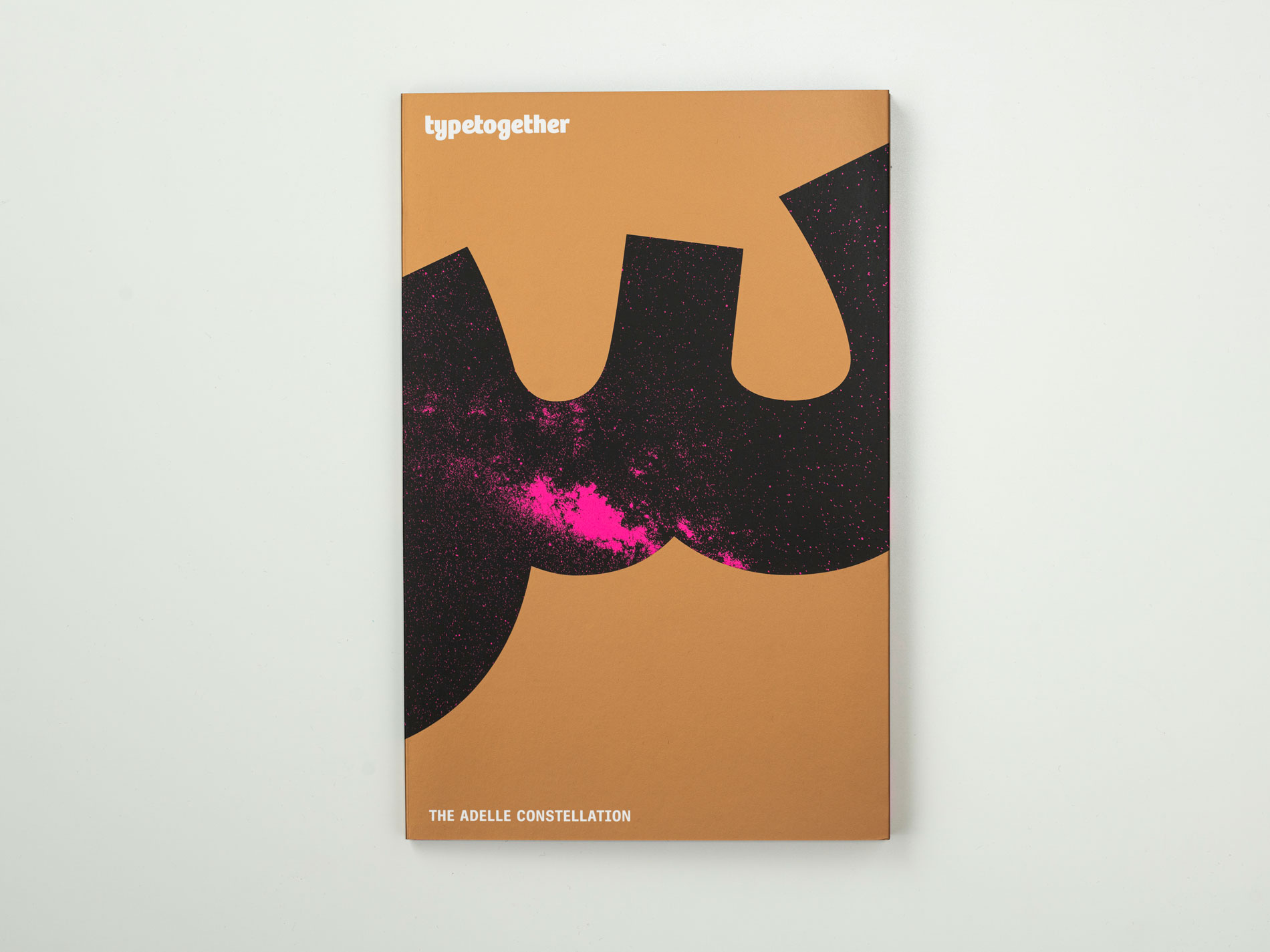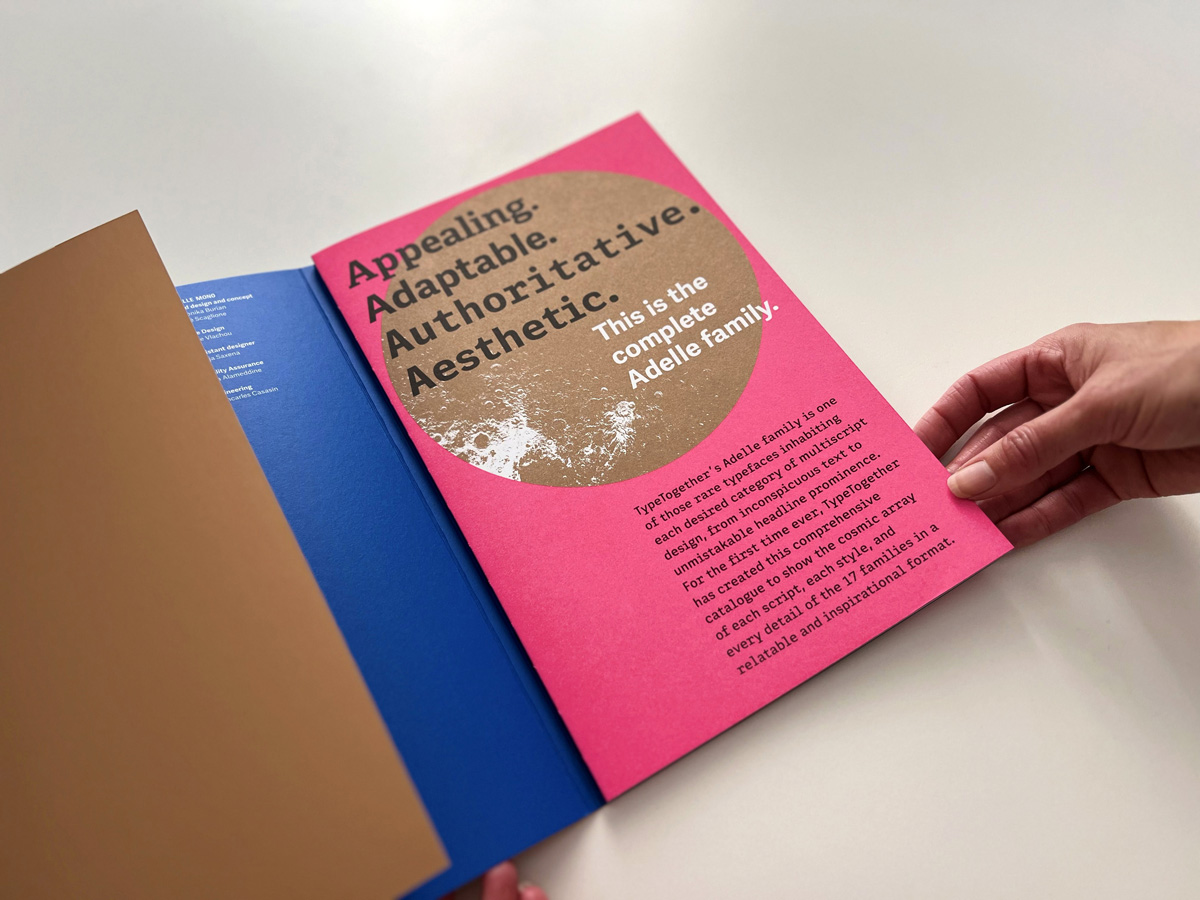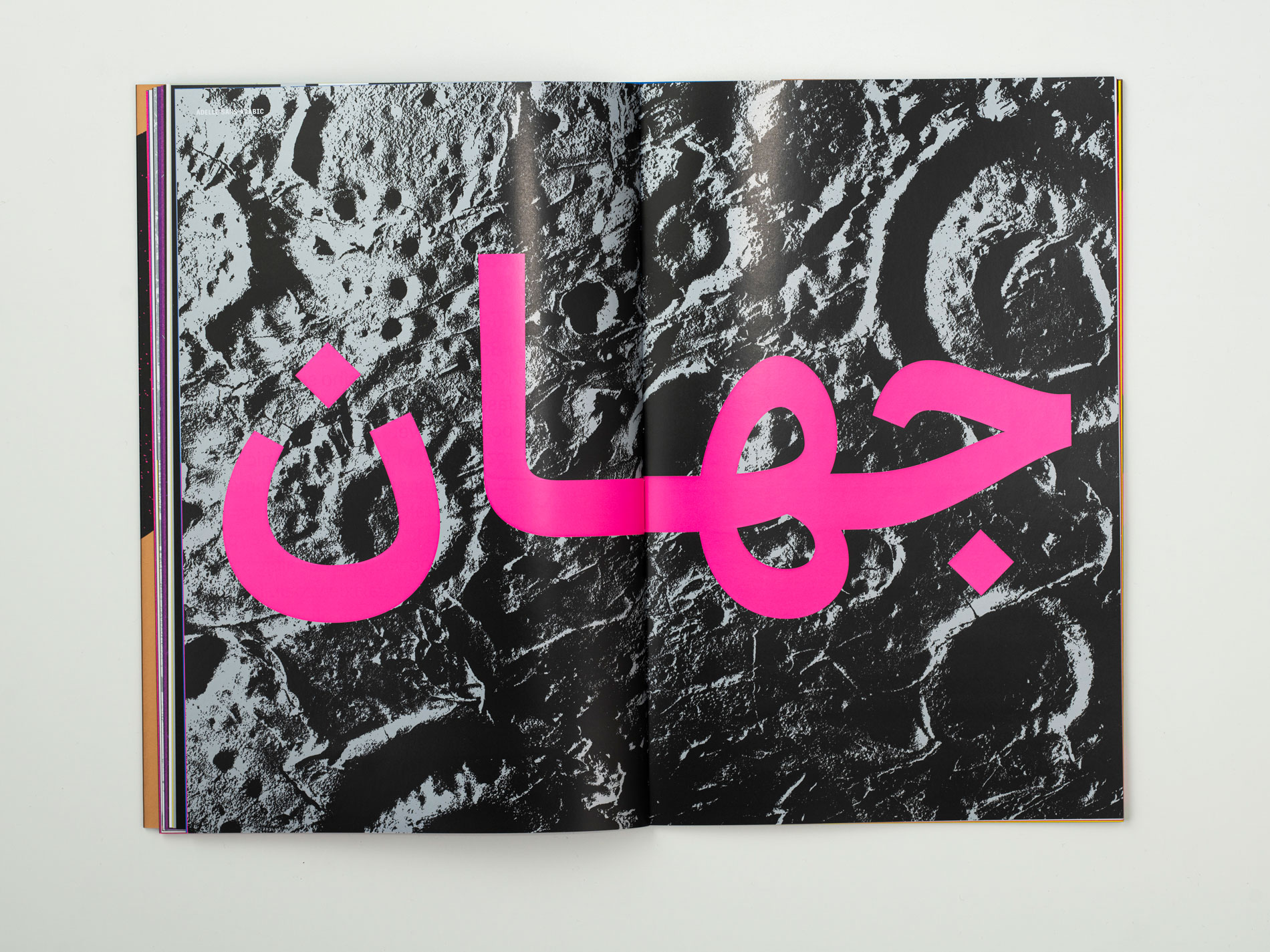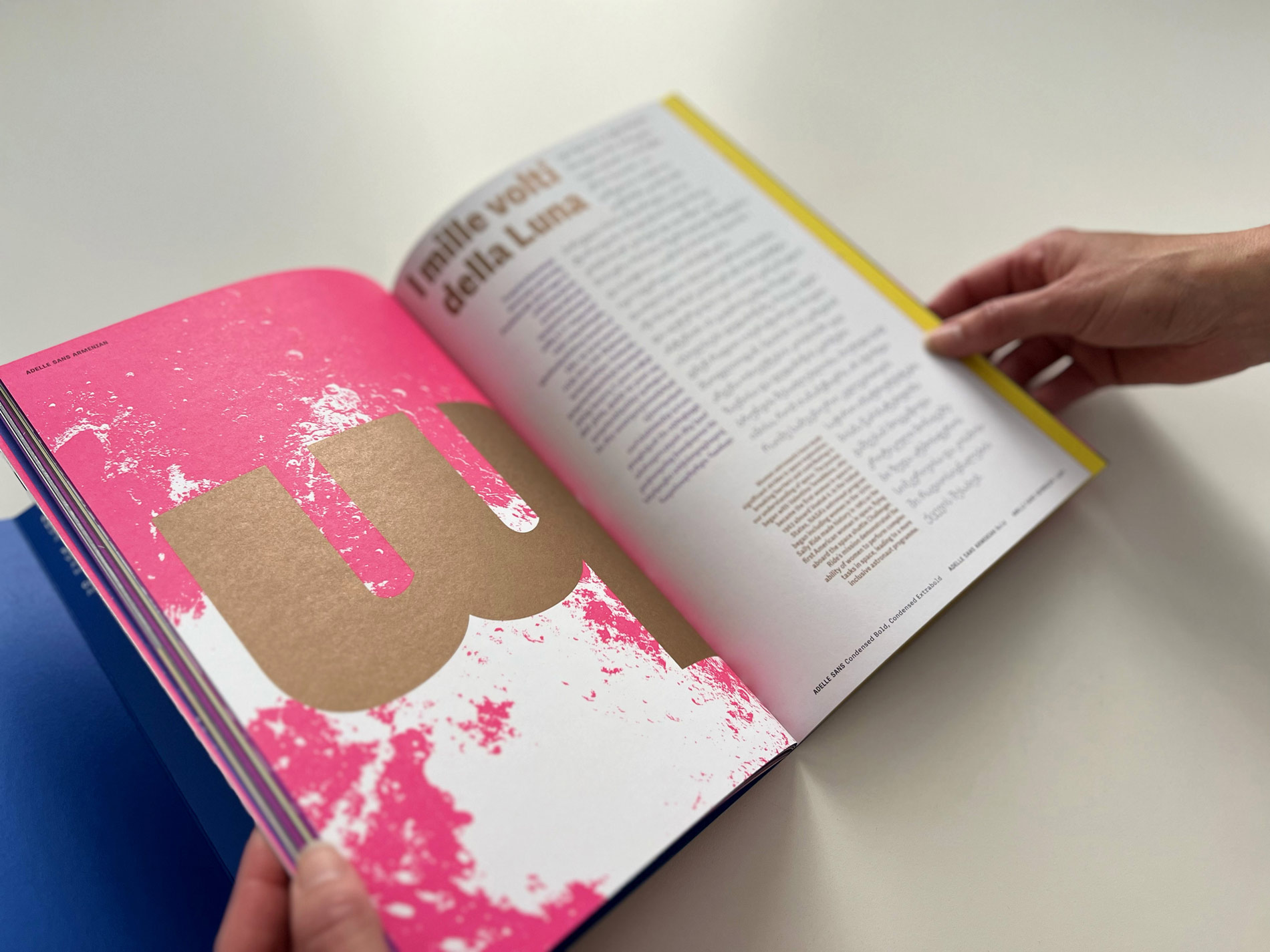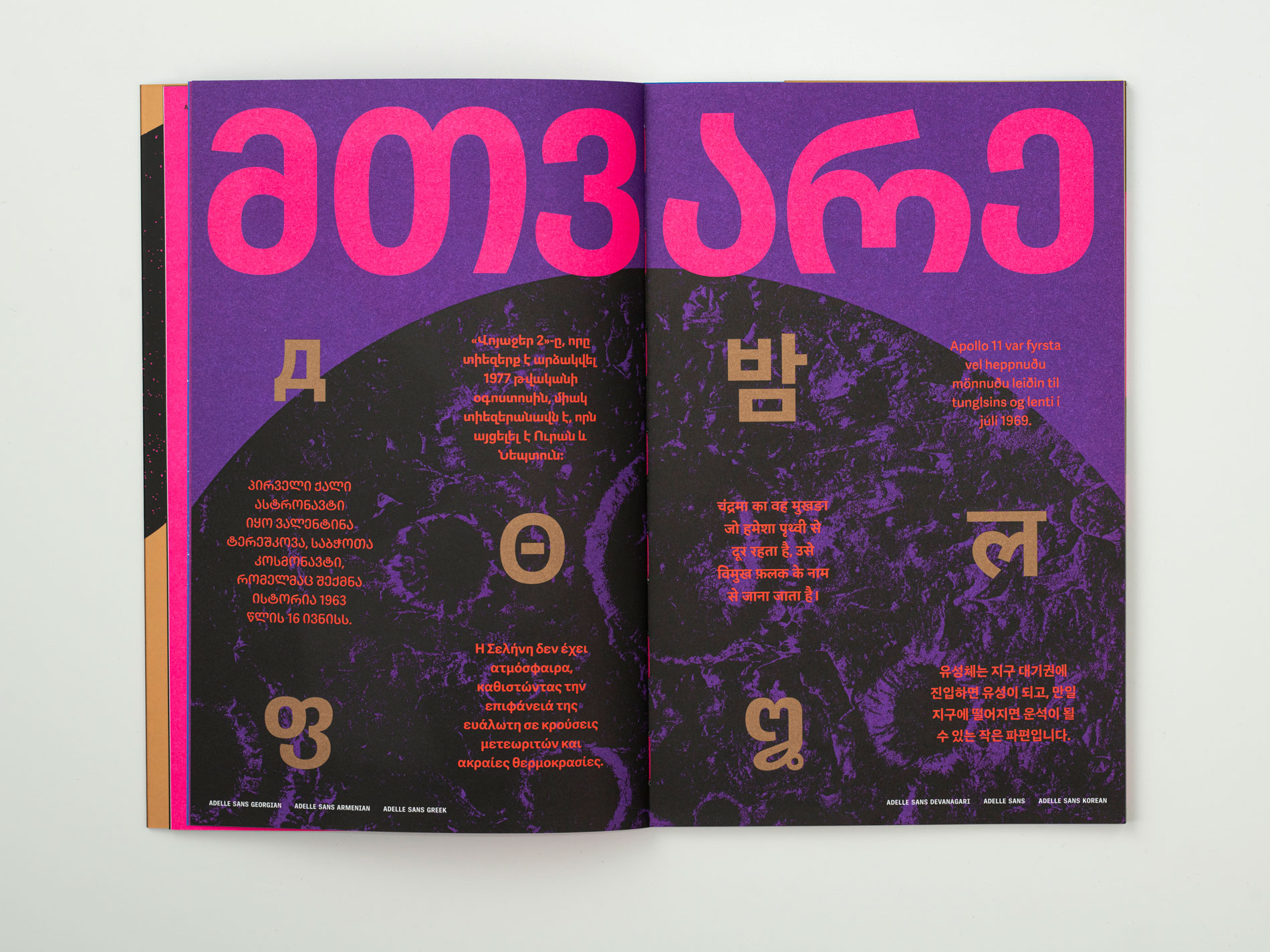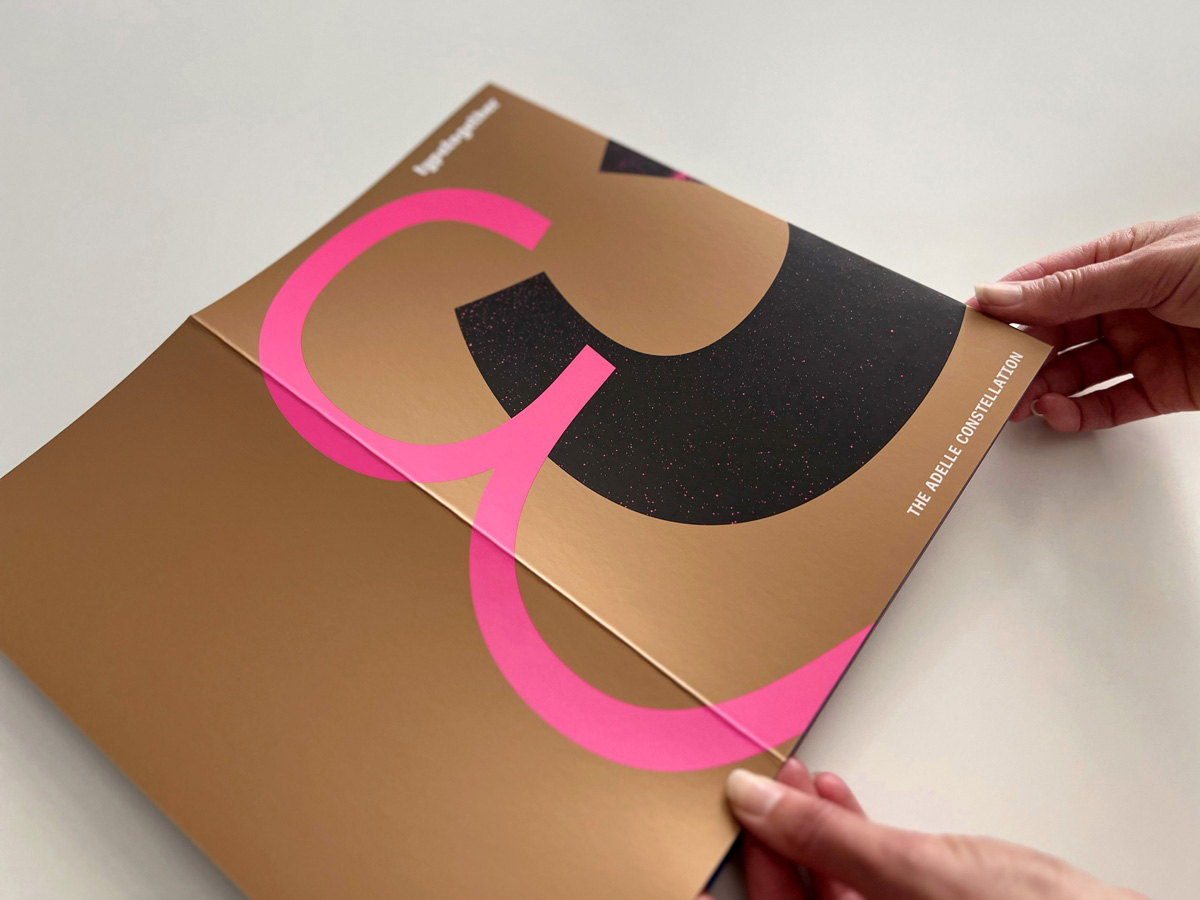
Collectible catalogue: Adelle family
For the first time ever, we have gathered the entire Adelle family into one printed piece — the original Adelle slab serif, Adelle Sans, the condensed versions, as well as the monospaced Adelle Mono and Adelle Mono Flex.
Not only that, but each script is also included: 12 for Adelle Sans; three for Adelle; and Latin for the monospace and condensed versions. This is one of the few truly world-ready type families crossing multiple categories.
The catalogue was beautifully designed by Tereza Bettinardi and the TypeTogether team, with shimmering metallic inks and neon colours, and responsibly printed on Fedrigoni Arena Smooth paper. Since Adelle has traversed the world, in this collectable, we have gone beyond mere typographic words to express the inspirational reach of mankind into the cosmos. Grab yours from the Merchandise Shop while the planets remain aligned.